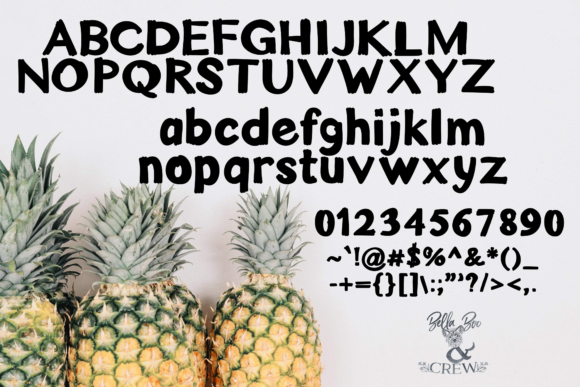
BBC Chunky Punky Luau Font: Add a Quirky Touch to Your Designs
Are you tired of using the same old fonts in your designs? Do you want to add a touch of fun and personality to your projects? Look no further than the BBC Chunky Punky Luau Font! This spunky, fat little display font is perfect for designers and crafters who want to bring a quirky, fun feel to their work.
What is BBC Chunky Punky Luau Font?
Chunky Punky Luau is a display font that is sure to turn heads. Each letter was carefully crafted with a fun edge to add personality and attitude to your designs. The font is bold, playful, and perfect for making a statement. Whether you’re working on a logo, a poster, or a digital project, Chunky Punky Luau is sure to add a touch of whimsy and fun.
Key Features of BBC Chunky Punky Luau Font
- Quirky and Fun: Chunky Punky Luau is a font that is all about having fun. Its playful, irregular shape makes it perfect for designs that need a bit of personality.
- Bold and Display: This font is designed to make a statement. Its bold, chunky letters are perfect for headlines, titles, and other display text.
- Carefully Crafted: Each letter in the Chunky Punky Luau font was carefully crafted to ensure that it has a fun edge. The result is a font that is both playful and sophisticated.
- Versatile: Chunky Punky Luau can be used in a wide range of projects, from logos and posters to digital projects and crafts.
Uses for BBC Chunky Punky Luau Font
So, what can you use the BBC Chunky Punky Luau Font for? The possibilities are endless! Here are a few ideas to get you started:
- Logos and Branding: Use Chunky Punky Luau to create a fun and quirky logo for your business or brand.
- Posters and Flyers: Add a touch of personality to your posters and flyers with this bold and playful font.
- Digital Projects: Use Chunky Punky Luau in your digital projects, such as social media graphics, blog posts, and website headers.
- Crafts and DIY: This font is perfect for crafters and DIY enthusiasts who want to add a personal touch to their projects.
Tips for Using BBC Chunky Punky Luau Font
Here are a few tips for using the BBC Chunky Punky Luau Font:
- Use it Sparingly: Because Chunky Punky Luau is a bold font, it’s best to use it sparingly. Use it for headlines and titles, and pair it with a simpler font for body text.
- Experiment with Colors: This font looks great in a wide range of colors. Experiment with different colors to find the one that works best for your project.
- Pair it with Other Fonts: Chunky Punky Luau can be paired with a wide range of fonts. Try pairing it with a simple sans-serif font for a fun and modern look.
The BBC Chunky Punky Luau Font is a fun and quirky display font that is perfect for designers and crafters who want to add a touch of personality to their projects. With its bold, playful letters and carefully crafted design, this font is sure to turn heads. Whether you’re working on a logo, poster, or digital project, Chunky Punky Luau is a great choice. So why not give it a try and see how it can add a touch of whimsy and fun to your designs?